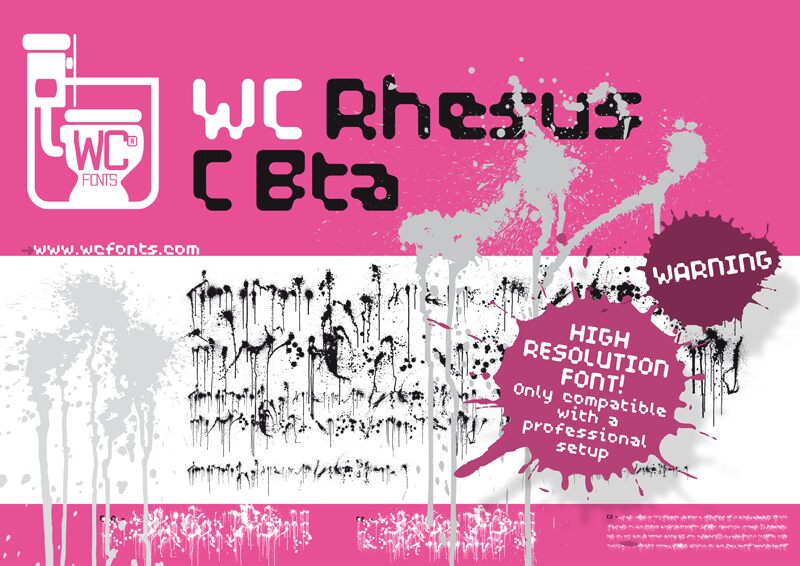
WC Rhesus C 1Bta by WC Fonts is a free art dingbat font filled with ink splashes, drips, spatters, and pooled blot shapes. The marks range from fine sprays and stray droplets to dense stains with long vertical runs, giving the collection the convincing disorder of wet ink thrown across a surface.
Poster design is its strongest setting, especially for punk, street-art, horror, or experimental music themes. It also gives album packaging, event graphics, and merchandise a ready-made layer of physical mess and movement. These marks can become the artwork itself.